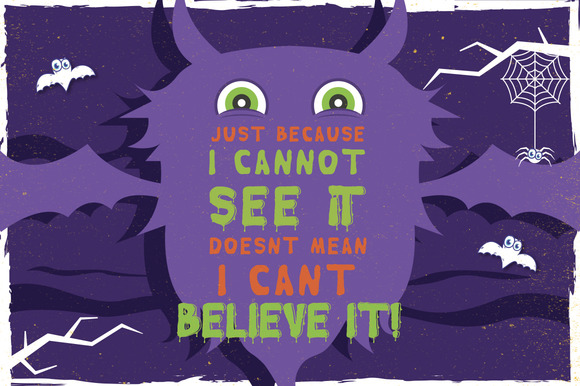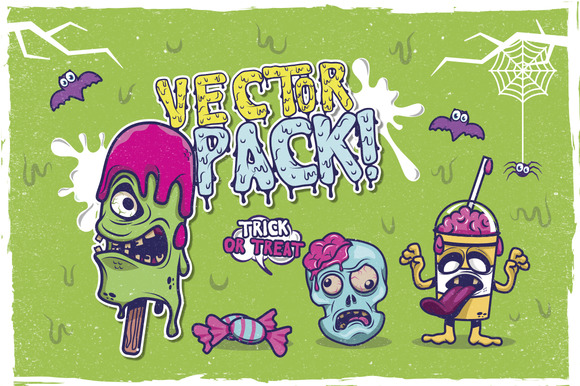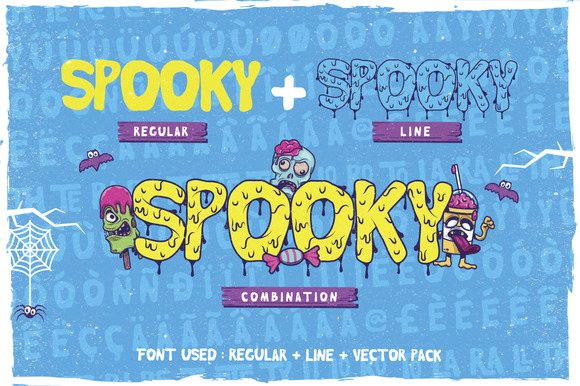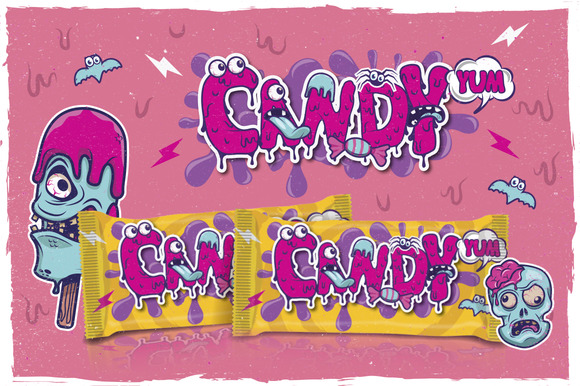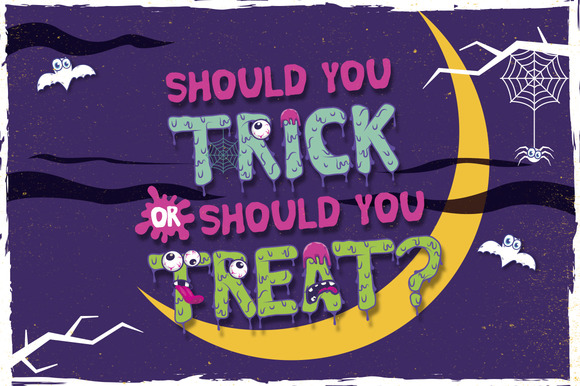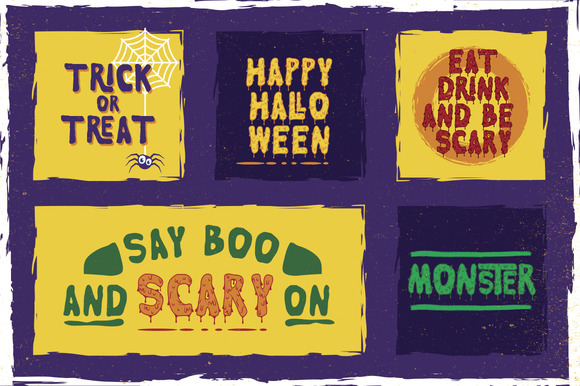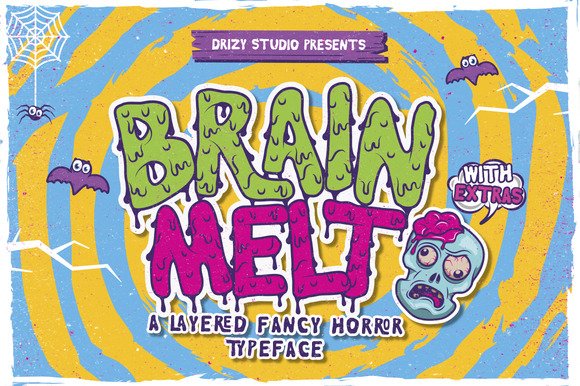
Get Ready for a Font that will Leave You Shivering
Have you ever stared at a blank canvas, waiting for inspiration to strike? I know I have, and it’s moments like those that make us designers appreciate the little things that can spark our creativity. For me, it was a particularly eerie Halloween decoration that caught my eye – a dripping slime droplet that seemed to come to life in the dim light. And just like that, the idea for a unique font was born.
Enter the Brain Melt Font, a layered horror font that’s perfect for designers looking to create a spooky atmosphere. This font is not just a tool, but an experience – it’s a way to tap into the eerie and the unknown. With its layered design and eerie feel, the Brain Melt Font is a valuable addition to any designer’s toolkit, especially when it comes to creating ghost, horror, or Halloween-themed designs.
Brain Melt Font Key Features
- Unique Characteristics: Brain Melt Font features a distressed, retro-futuristic aesthetic with a mix of organic and geometric shapes, creating a visually striking and attention-grabbing effect.
Brain Melt Font Review
Overall, I think the Brain Melt Font has some great qualities, but it also has some limitations that might make it not suitable for every design project. ✨
- The Brain Melt Font has a unique and eye-catching design that can add a fun touch to a project. ✨
- The font is highly customizable, with a wide range of style options and effects that can be applied to create a truly unique look. ✨
- The font is well-suited for use in titles, headings, and other text elements where a bold, attention-grabbing look is desired. ✨
- The Brain Melt Font can be overwhelming if used excessively, and may not be suitable for large blocks of text. ⚠️
- The font may not be legible at smaller sizes, which can limit its use in certain design contexts. ⚠️
- The font’s unique design may not be to everyone’s taste, and may not be suitable for projects where a more conservative or traditional look is desired. ⚠️
In conclusion, the Brain Melt Font is a fun and versatile font that can add a unique touch to a design project. However, it’s not without its limitations, and designers should carefully consider the context and goals of their project before choosing to use it. With careful use, the Brain Melt Font can be a great addition to a designer’s toolkit.
The Brain Melt Font is ideal for creating unique and eye-catching designs, such as:
– Infographics
– Posters
– Flyers
– Web headers and footers
Tips for Getting the Most Out of Brain Melt Font
To get the most out of the Brain Melt Font, try the following tips:
– Use it sparingly to create a bold and striking effect.
– Combine it with other fonts to create a unique and interesting look.
– Experiment with different font sizes and styles to achieve the desired effect.